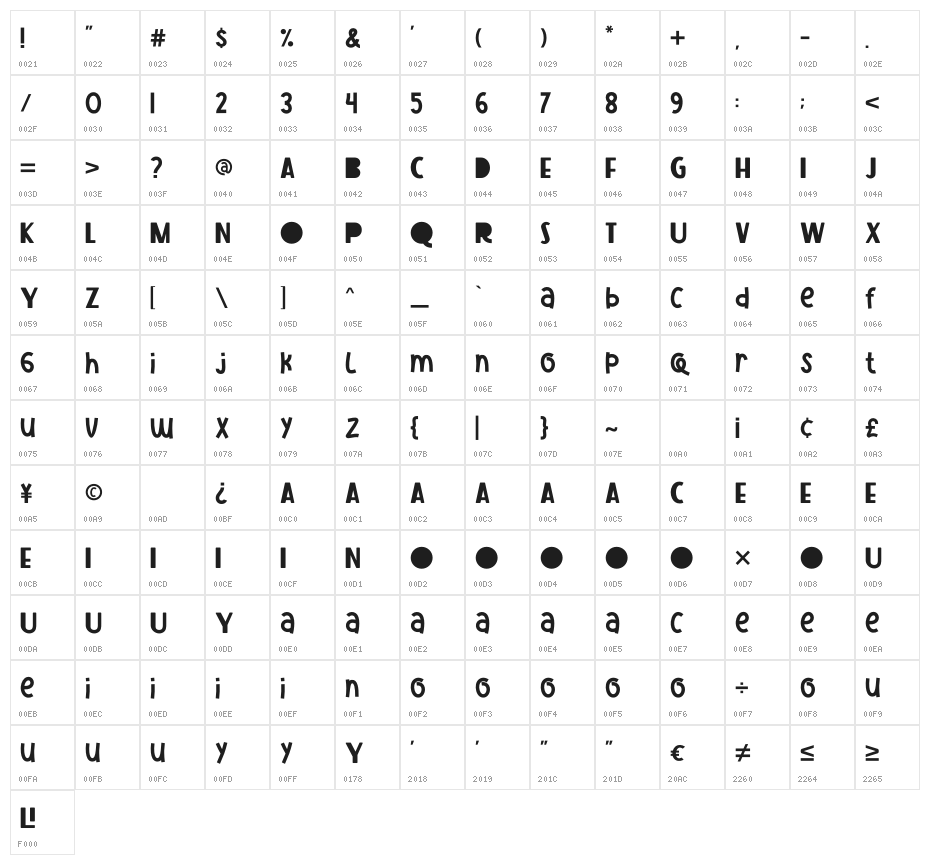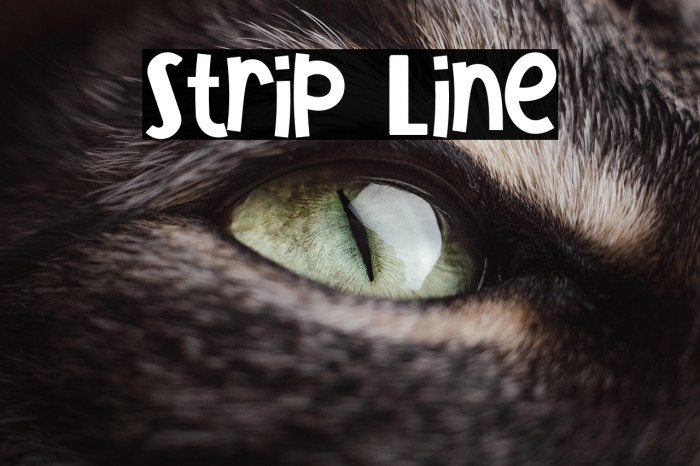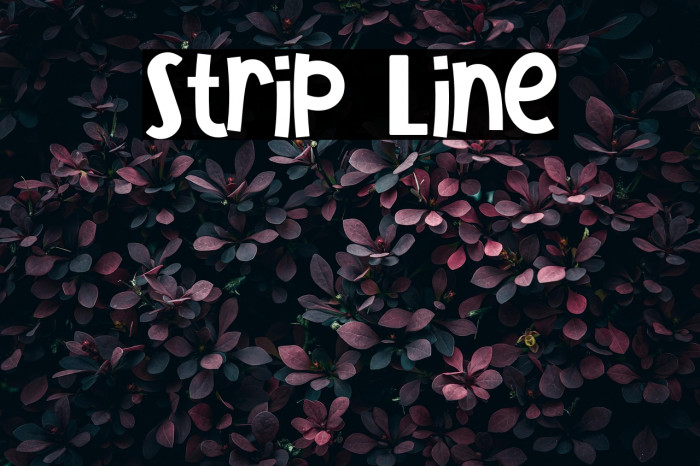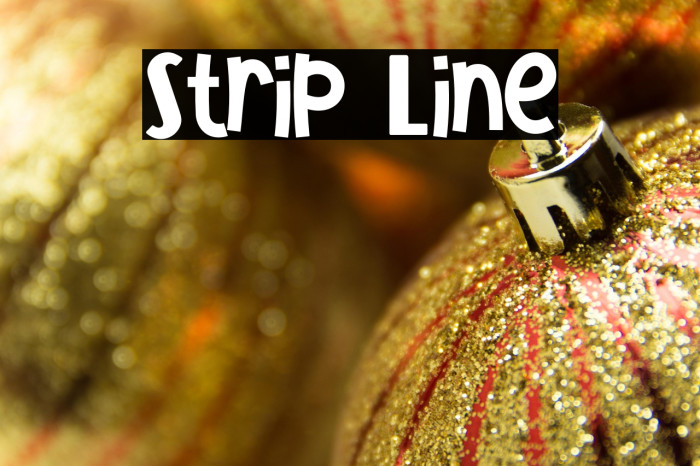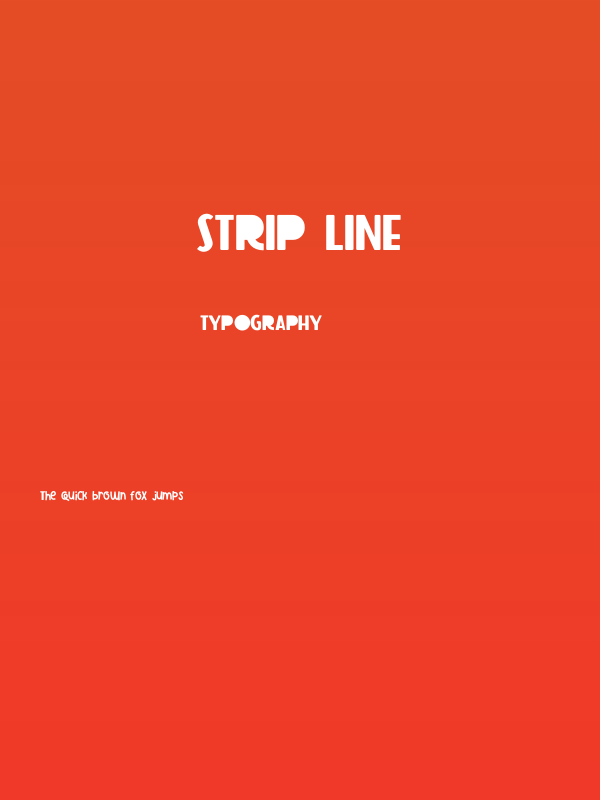
Strip Line Font
Strip Line Description
This font features a bold and playful design with a unique blend of geometric and organic shapes. The uppercase letters are characterized by their thick, solid forms, while the lowercase letters introduce a more whimsical and curvy style. The numbers maintain the boldness of the uppercase letters, ensuring consistency throughout. Special characters are creatively designed, adding to the font's overall quirky and fun appearance. This font is ideal for projects that require a lively and engaging visual impact.
| Overall Style | Playful, Quirky |
| Proposed Projects | Perfect for children's books, playful branding, posters, and creative advertisements. |